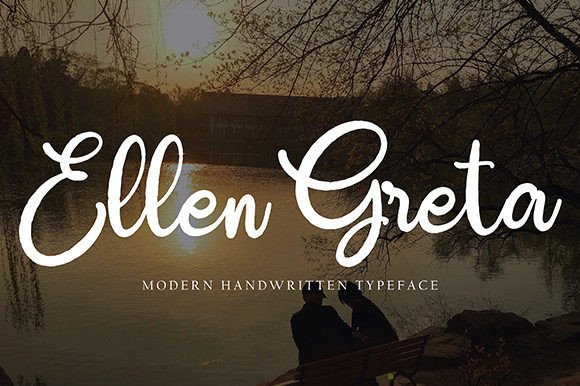
Ellen Greta Font: Elevate Your Designs with a Modern Handwritten Script
In the world of typography, fonts play a crucial role in bringing a design to life. Among the numerous font styles available, handwritten scripts have gained immense popularity for their unique and personalized touch. One such font that has caught the attention of designers and crafters is the Ellen Greta Font. In this article, we’ll explore the features, benefits, and uses of Ellen Greta, a modern handwritten script that can add a touch of elegance and sophistication to your designs.
What is Ellen Greta Font?
Ellen Greta is a modern handwritten script font that exudes a natural, stylish, and elegant feel. Its versatile style makes it perfect for a wide range of design projects that require a handwritten touch. The font’s unique characteristics, such as varying line widths and subtle connections, give it a human-like quality that sets it apart from other font styles.
Key Features of Ellen Greta Font
- Natural and Stylish: Ellen Greta’s handwritten style gives it a natural and stylish look that can elevate any design.
- Versatile: The font’s versatility makes it suitable for various design projects, from wedding invitations to business cards.
- Handwritten Feel: Ellen Greta’s unique characteristics, such as varying line widths and subtle connections, give it a human-like quality.
- Easy to Read: Despite its handwritten style, Ellen Greta is easy to read, making it perfect for body text and captions.
Uses of Ellen Greta Font
Ellen Greta’s versatility makes it suitable for a wide range of design projects. Here are some of the most popular uses of this modern handwritten script:
- Wedding Invitations: Ellen Greta’s elegant and sophisticated style makes it perfect for wedding invitations, save-the-date cards, and other wedding-related designs.
- Thank You Cards: The font’s handwritten feel makes it ideal for thank you cards, greeting cards, and other personalized correspondence.
- Quotes and Typography: Ellen Greta’s unique style makes it perfect for showcasing quotes, lyrics, and other typography-focused designs.
- Greeting Cards: The font’s versatility makes it suitable for various types of greeting cards, from birthday and holiday cards to get-well and congratulations cards.
- Logos and Branding: Ellen Greta’s modern and stylish look makes it perfect for logos, business cards, and other branding materials.
- Business Cards: The font’s professional and elegant style makes it suitable for business cards, letterheads, and other corporate designs.
Benefits of Using Ellen Greta Font
Using Ellen Greta Font can bring numerous benefits to your designs. Here are some of the advantages of incorporating this modern handwritten script into your work:
- Unique and Personalized: Ellen Greta’s handwritten style gives your designs a unique and personalized touch that sets them apart from others.
- Emotional Connection: The font’s human-like quality can create an emotional connection with your audience, making your designs more relatable and engaging.
- Flexibility: Ellen Greta’s versatility makes it suitable for various design projects, allowing you to experiment with different styles and applications.
- Easy to Use: The font’s ease of use makes it perfect for designers and crafters of all skill levels, from beginners to professionals.
Ellen Greta Font is a modern handwritten script that can add a touch of elegance and sophistication to your designs. Its versatile style, natural look, and stylish feel make it perfect for a wide range of design projects, from wedding invitations to business cards. With its unique characteristics, ease of use, and emotional connection, Ellen Greta is an excellent choice for designers and crafters looking to create personalized and engaging designs.